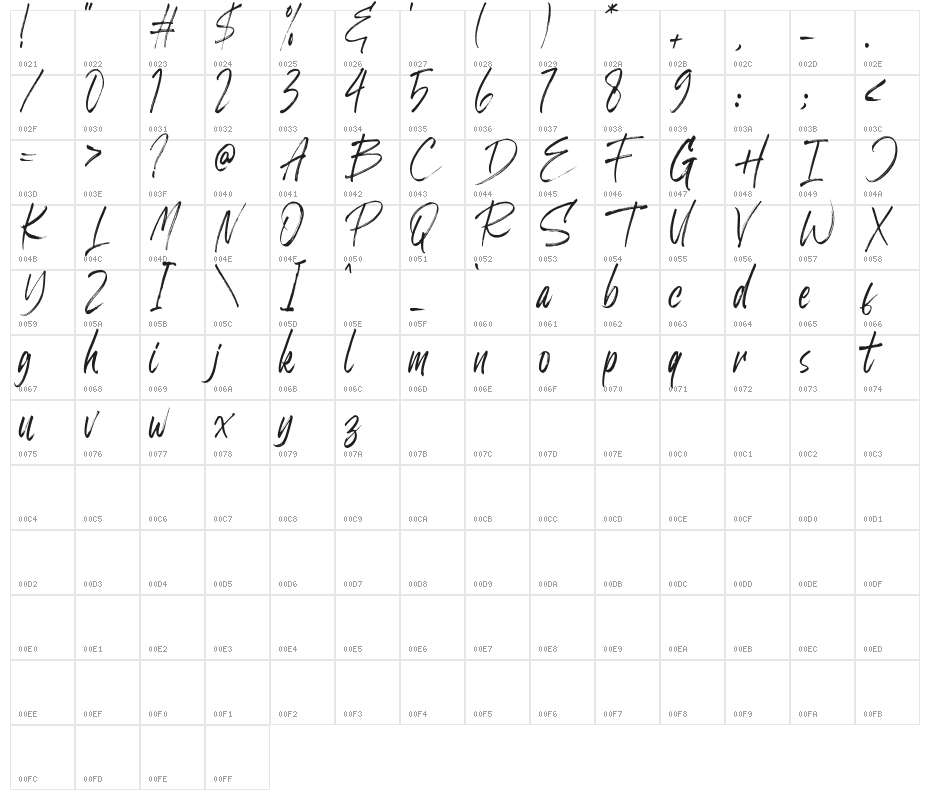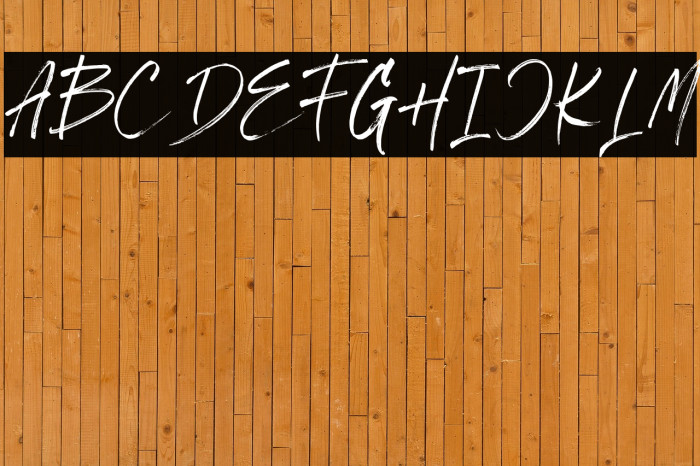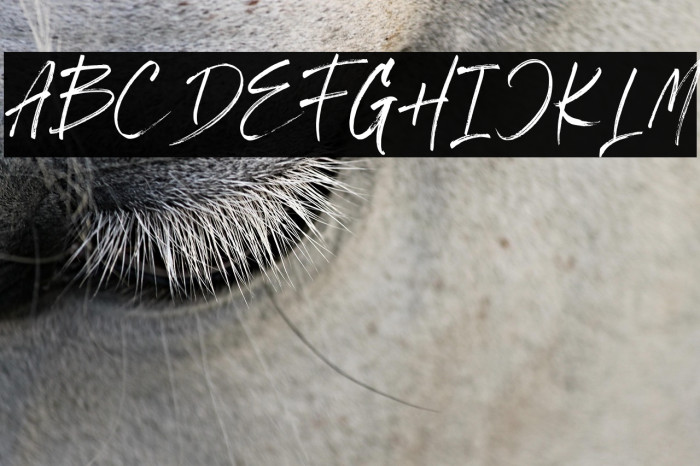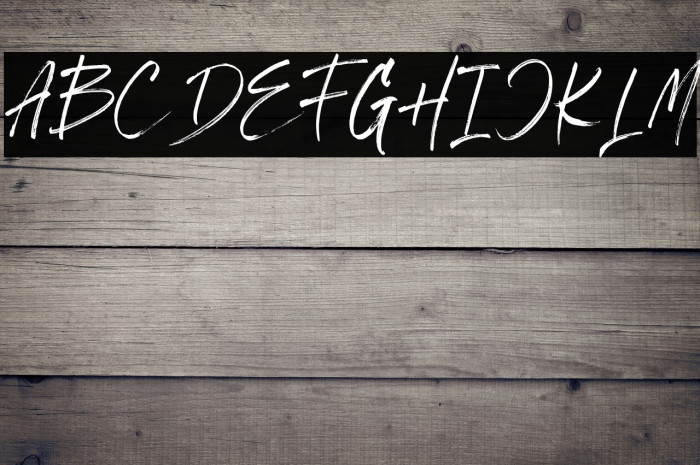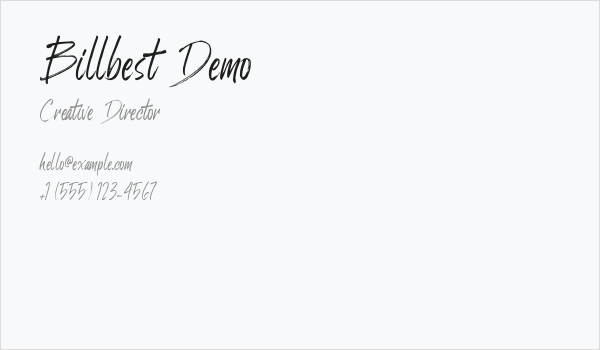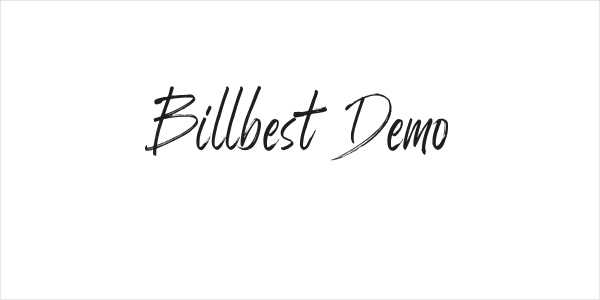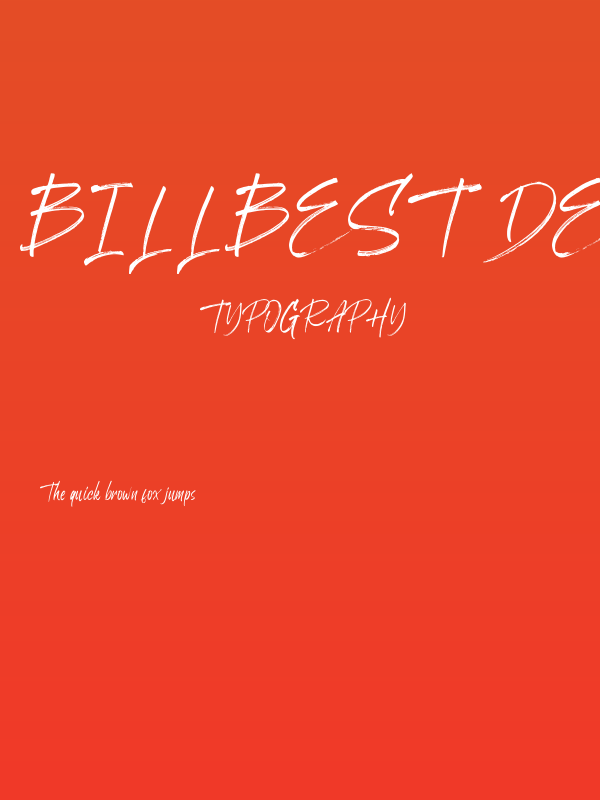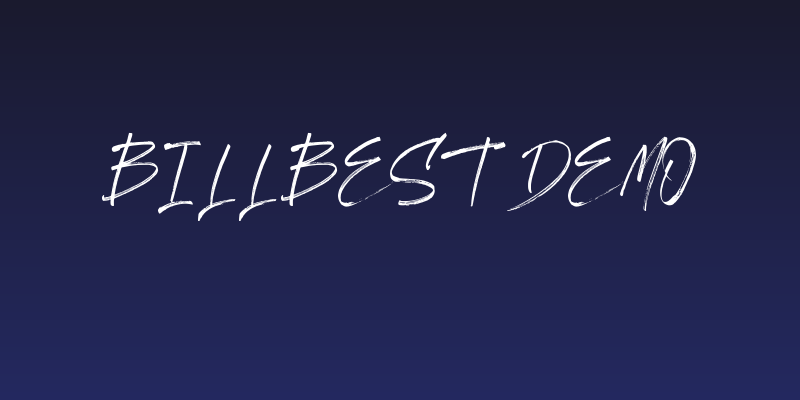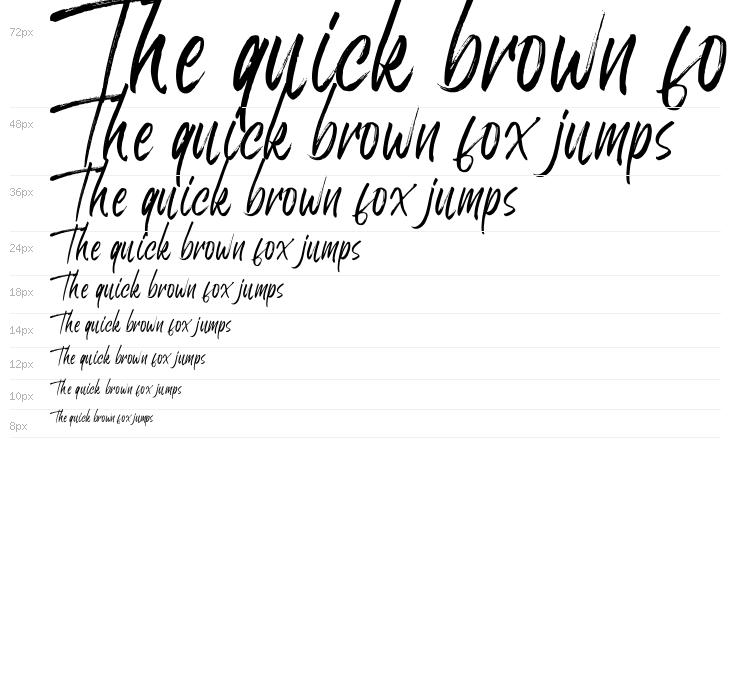
Billbest Demo Font
Billbest Demo Description
This font exhibits a dynamic and expressive handwritten style, characterized by its fluid and cursive strokes. The uppercase letters are bold and slightly slanted, giving a sense of movement and energy. The lowercase letters maintain a consistent flow, with some characters featuring distinctive loops and curves. Numbers and special characters follow the same lively aesthetic, making the font suitable for creative and informal applications. The overall appearance is artistic and personal, ideal for projects that require a touch of individuality and flair.
| Proposed Projects | Ideal for greeting cards, invitations, personal branding, and artistic posters. |